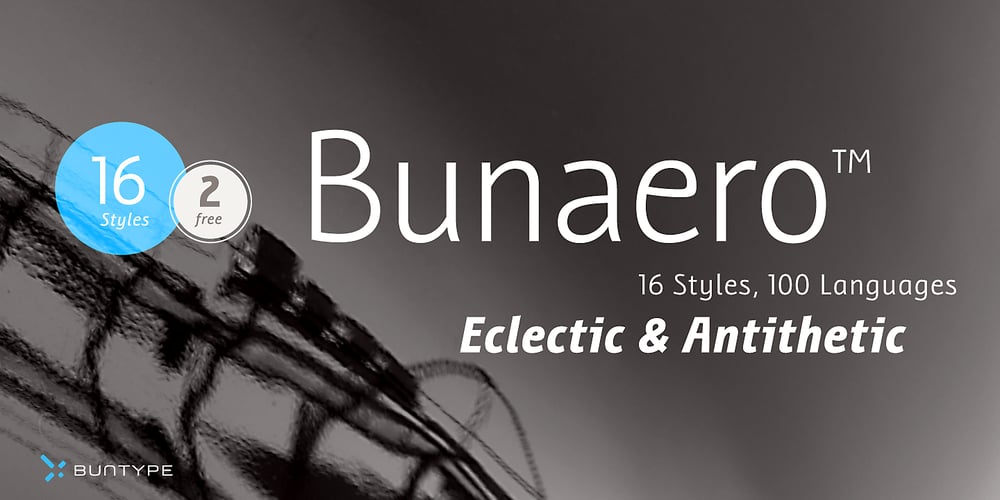
Bunaero
Bunaero font
Bunaero Font Family was designed by Petra Niedernolte, Ralf Sander and published by Buntype. Bunaero contains 20 styles and family package options. Buntypes Bunaero™ combines classical and contemporary characteristics to a unique and distinctive font family with extravagant but also harmonious appearance. The characters are clear, open and sometimes bellied. Especially the caps have a very high waistline. The font was manually hinted and contains extensive handcrafted kerning tables to ensure flawless appearance in all media. It supports at least 99 languages incl. Vietnamese and provides ligatures, alternative glyphs, special localized forms and even more enjoyable OpenType® features. Feature Summary*: – 9 weights, 18 styles: Hair, Light, Thin, SemiLight, Regular, SemiBold, Bold, ExtraBold and Heavy and corresponding italics – Supports at least 99 Languages incl. eastern european and vietnamese languages – Overall width: Narrow or Space-Saving – Advanced f- ligature set including fb – Discretionary s- and c- ligatures – Alternative Characters: a, e, f, g, i, k, l, t, v, w, y, J, K, Q, R, and more – Capital German Eszett – Extra characters with Polish Kreska – Catalan Punt Volat – Extra characters with alternate minimalistic Cedille * Some features may only be available in OpenType®-savvy applications